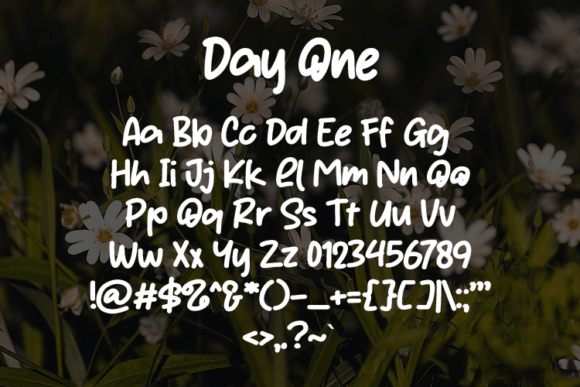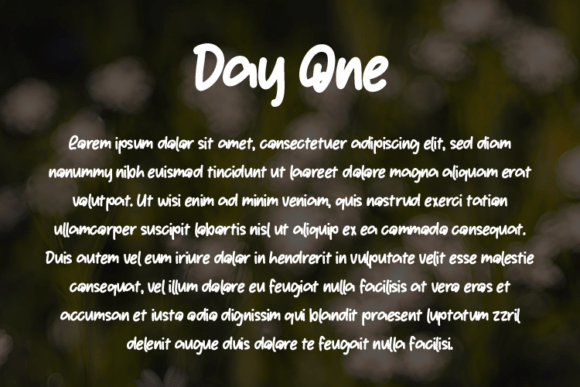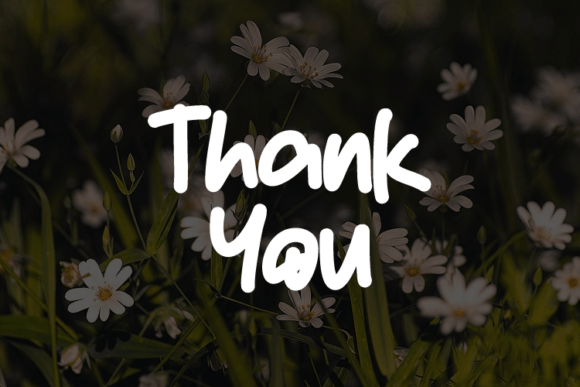
Introduction to Day One Font
Introduction Day One is a modern and elegant typeface designed for flexibility and excellent readability across a variety of media.
Key Features of Day One Font